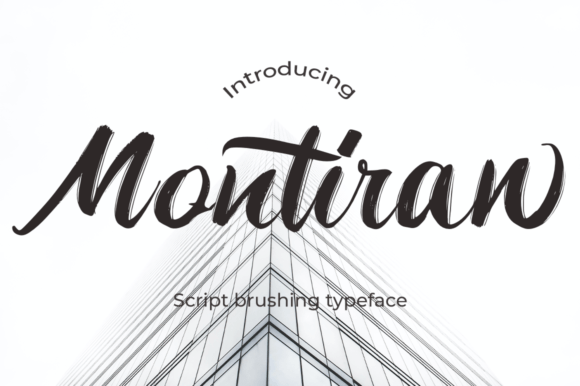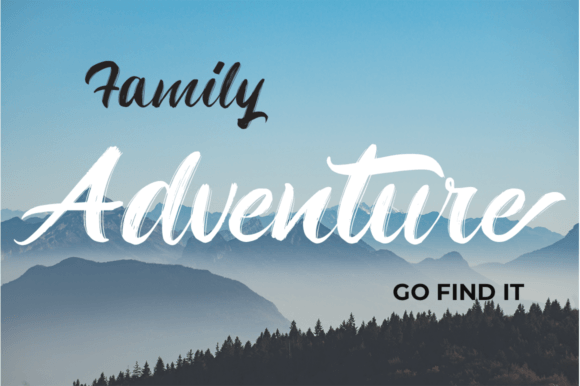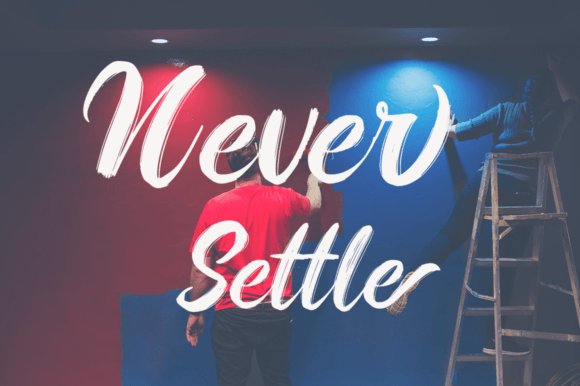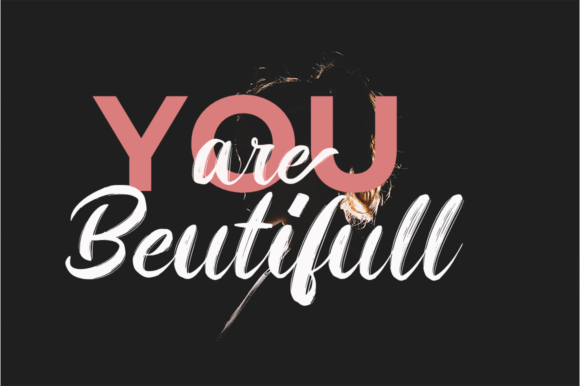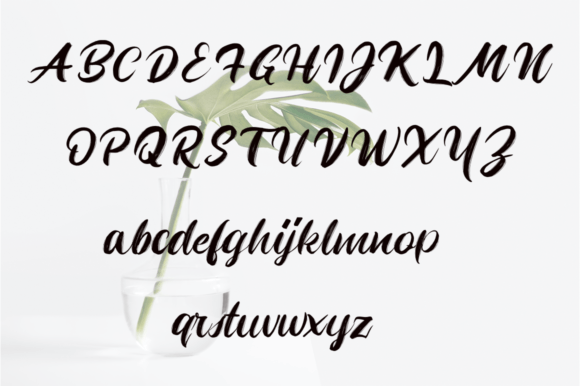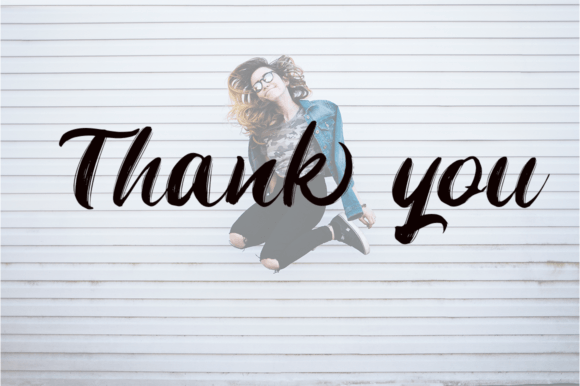
Montiran Font
About Montiran Font
Introducing Montiran, a casually beautiful handwritten font that effortlessly complements a myriad of design applications. Perfect for logos, product packaging, wedding invitations, branding, headlines, signage, labels, signatures, book covers, posters, quotes, and beyond, Montiran is a versatile typeface that adds a touch of elegance to any creative project.
This font exudes a natural, handcrafted aesthetic that lends a unique character to your designs. Whether you’re looking to create a standout logo, add a personal touch to wedding invitations, or make your product packaging more distinctive, Montiran is the answer.
Its flowing strokes and casual yet refined style make Montiran an excellent choice for a range of visual mediums. The font’s adaptability ensures that it not only meets but exceeds your expectations, bringing an air of sophistication to any context.
Imagine the impact of Montiran on your signage, labels, or book covers – it effortlessly captures attention while maintaining a sense of approachability. Its versatility extends to various design projects, making it a reliable choice for crafting memorable and aesthetically pleasing visuals.
Montiran is not just a font; it’s a creative tool that amplifies your message, giving your designs a timeless and charming quality. Whether you’re working on a project that demands subtlety or one that requires bold statements, Montiran rises to the occasion.
In summary, Montiran is the ideal handwritten font for those seeking a balance between casual beauty and versatility. Elevate your designs, whether they be logos, invitations, branding, or more, with the distinctive charm of Montiran – where every stroke tells a story of elegance and creativity.